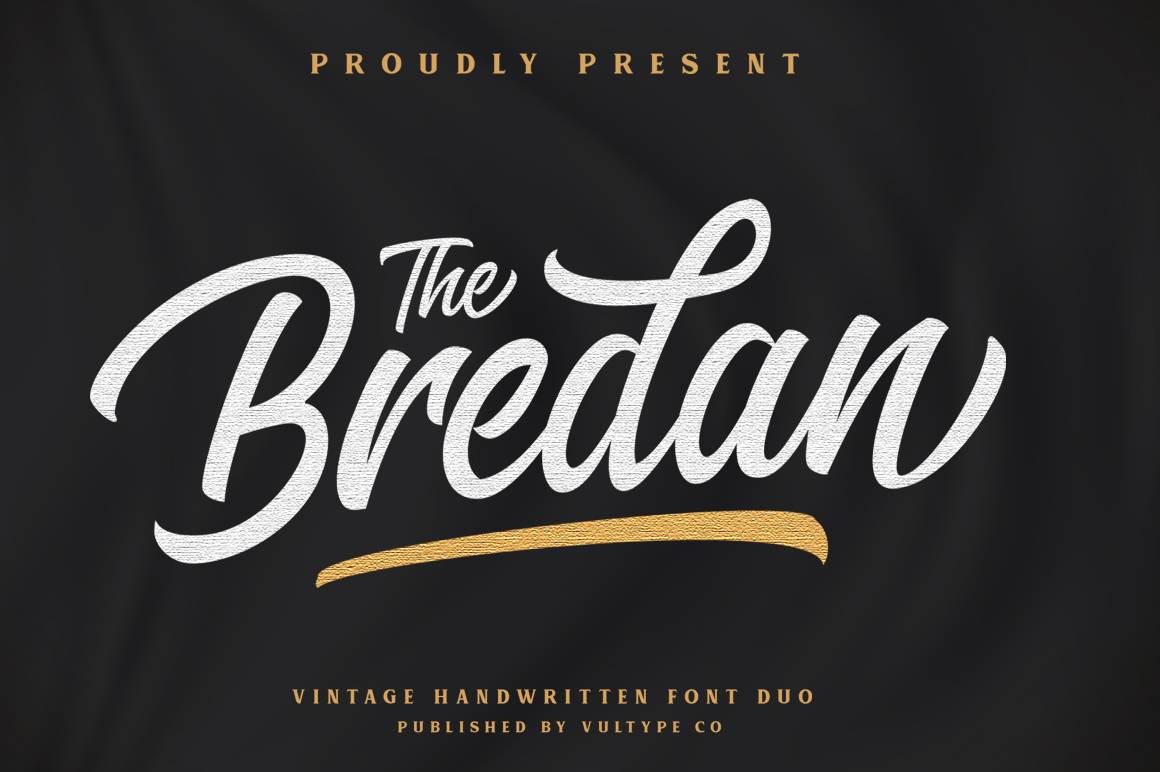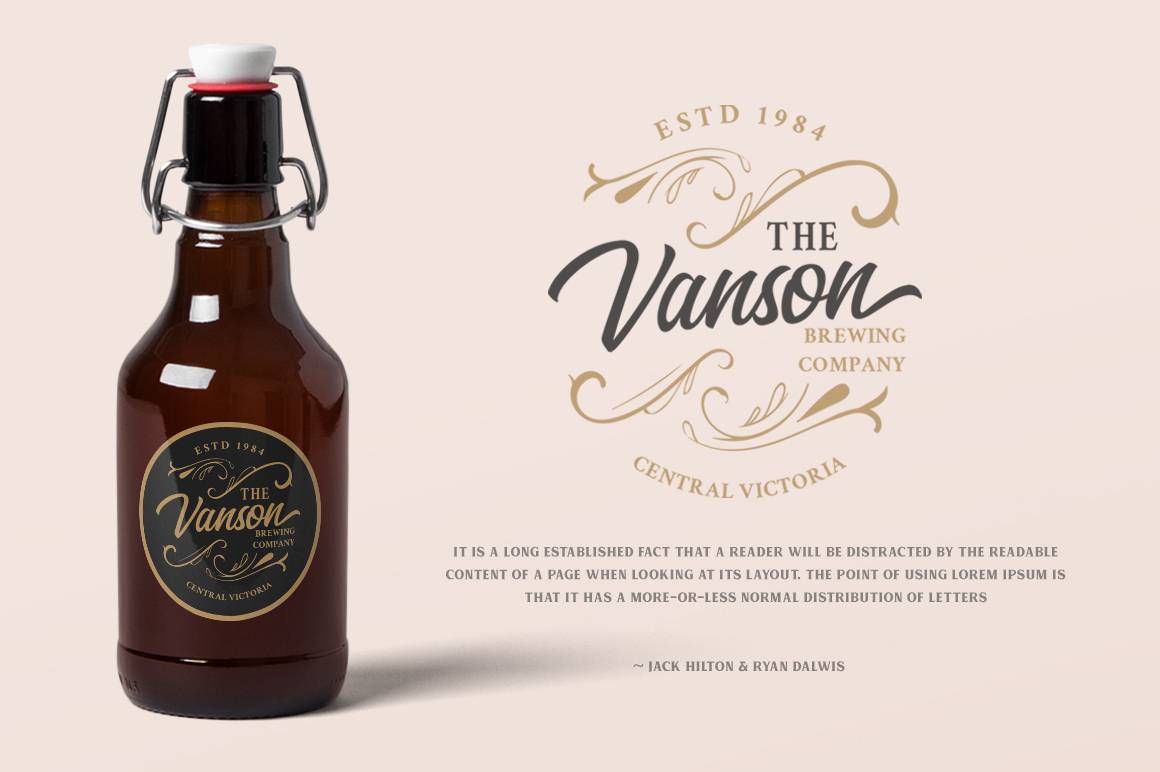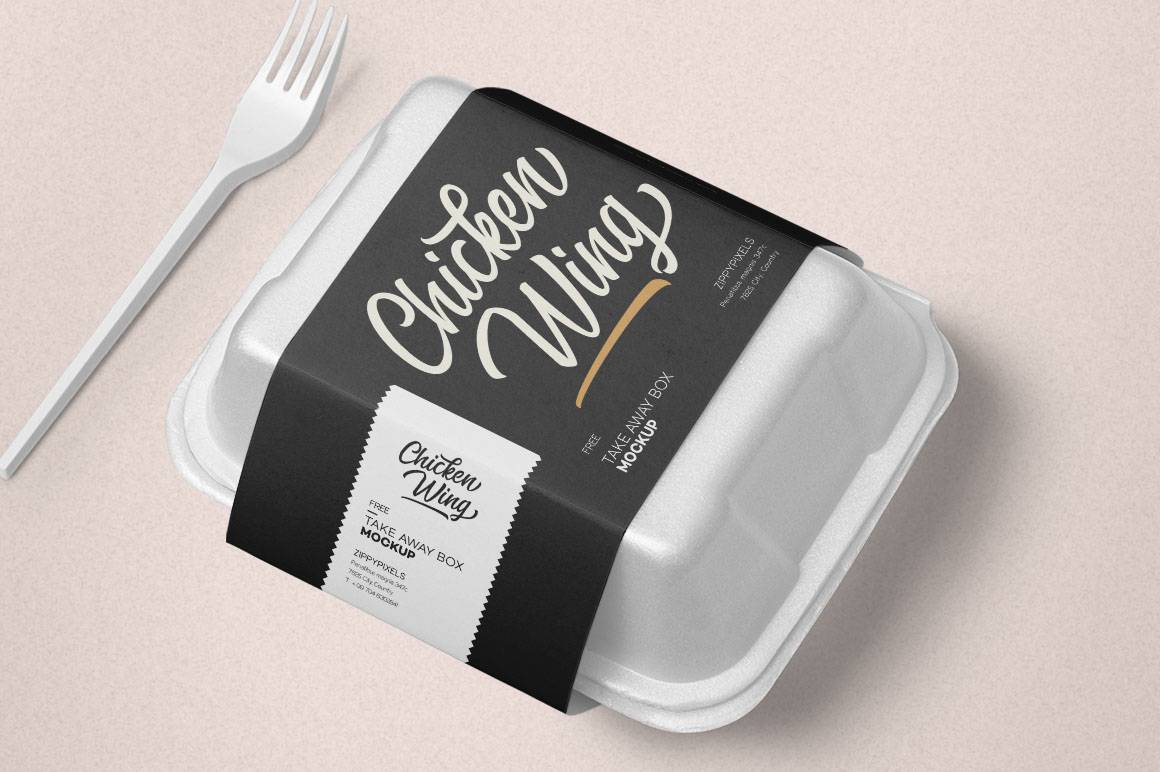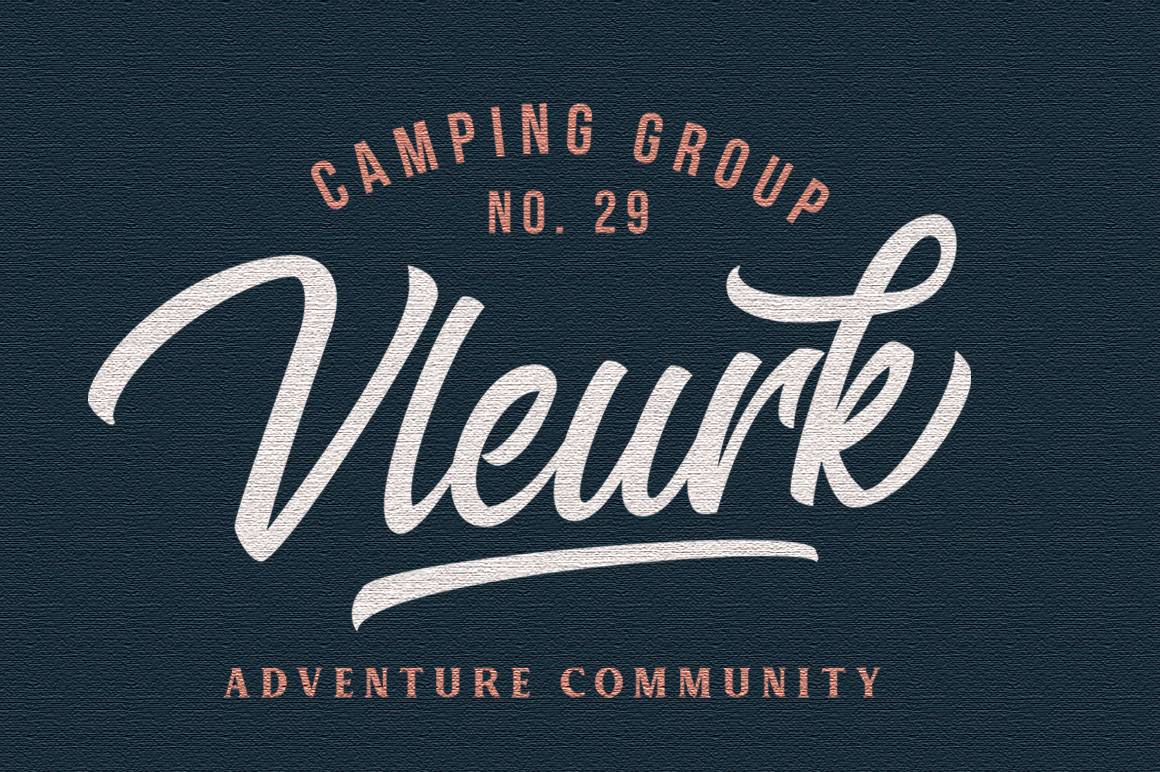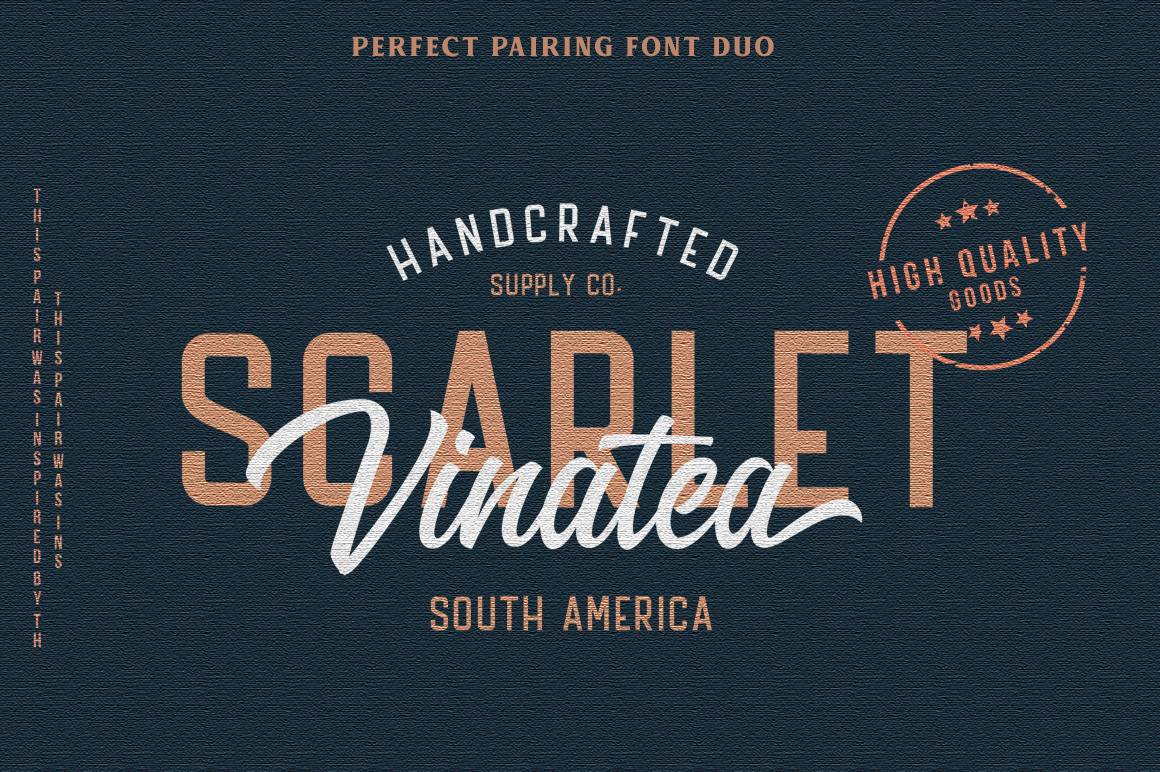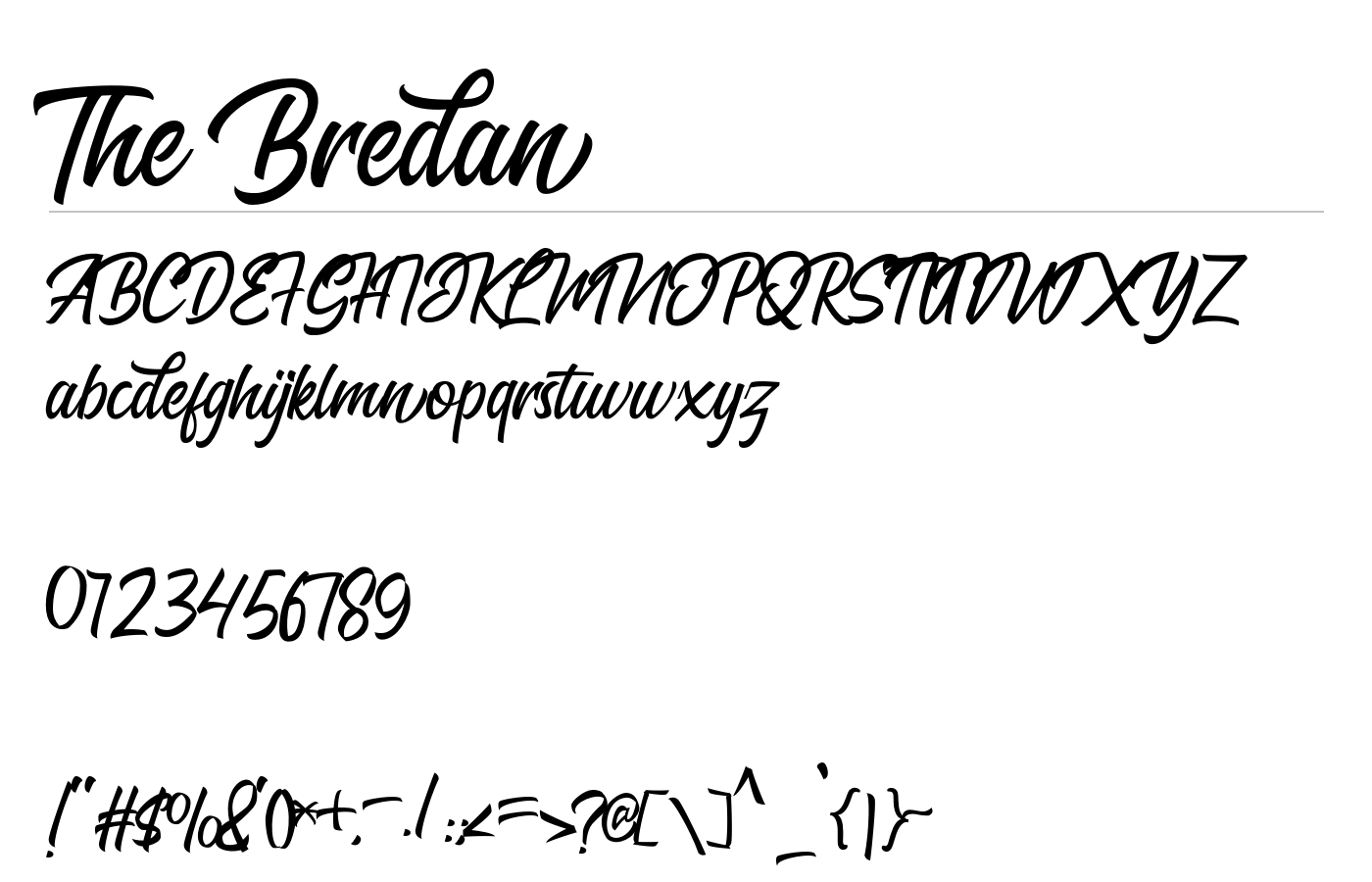
The Bredan font is a stylish, handwritten script with a balanced weight and elegant flow, featuring smooth, slightly varied strokes that convey warmth and personality. Its fluid letterforms and natural cursive style make it perfect for creative branding, invitations, and headlines where a personal and inviting touch is desired. This font works especially well in contexts that call for a blend of sophistication and approachability.
The Bredan Font
About The Bredan Font
| Font family | The Bredan Font |
| Release date | 2019-06-14 |
| Designer | Vultype Co |